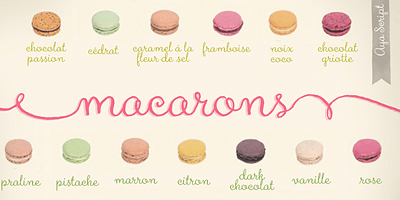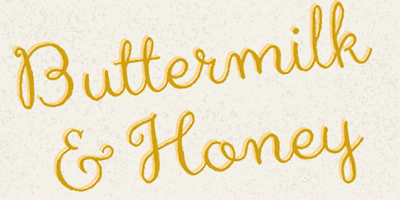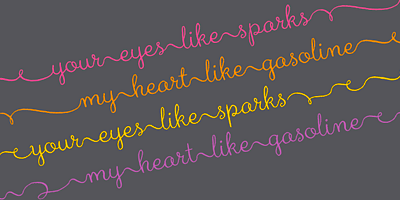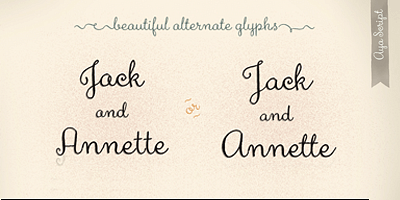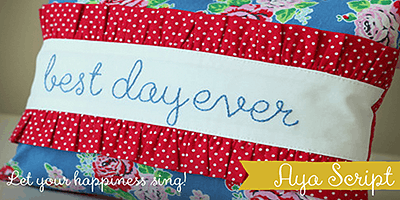
Aya Script
Aya Script is a friendly OpenType font hand-calligraphed in pen & ink with a healthy collection of alternates & ligatures. She’s easy to read and loves stationery, books and logos.